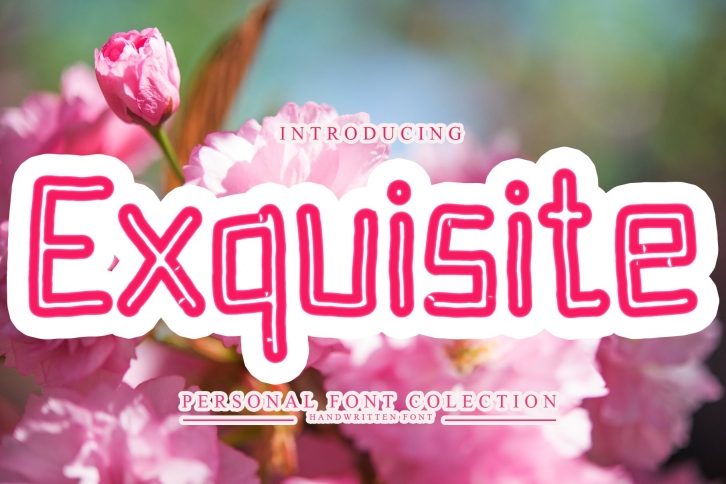
Exquisite is a gorgeous font that was realeased on November 2, 2020. The font can be used in many style contexts and design environments. Perfect for invitations, magazines, websites, logos, and more! It was designed by Giart Studio and the file size is 4.97 MB. Thanks for checking out this font!